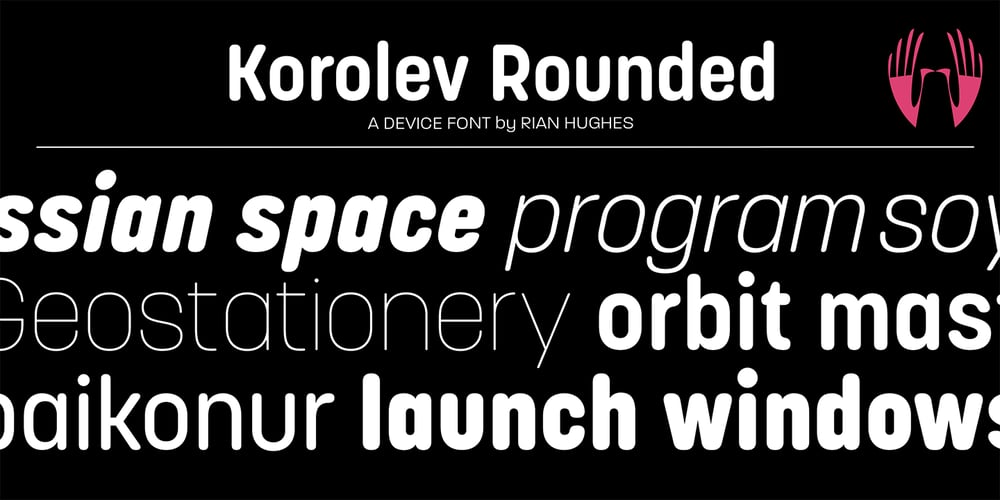
Korolev Rounded Font Family was designed by Rian Hughes and published by Device. Korolev Rounded contains 36 styles and family package options. DF Korolev is a 72 weight geometric sans serif family based on lettering by an anonymous Soviet graphic designer from the propaganda displays at the Communist Red Square parade in 1937. It has been named in honor of Sergey Pavlovich Korolyov, or Korolev, considered by many to be the father of practical astronomics. Rational and robust, it is also elegant and refined.Tracings done in Illustrator over a photograph featuring this type pinned down some of the basic character shapes. These were then imported into FontLab, where the full glyph complement was developed. The lower-case has been designed from scratch, and adheres to the structural logic of the uppercase as closely as possible. The complete Korolev super-family includes standard, italic, condensed, and compressed versions, each in five weights.The Alternate families come with a double-story “a”. Authoritative yet friendly, Korolev Rounded is a versatile addition to the Korolev range.